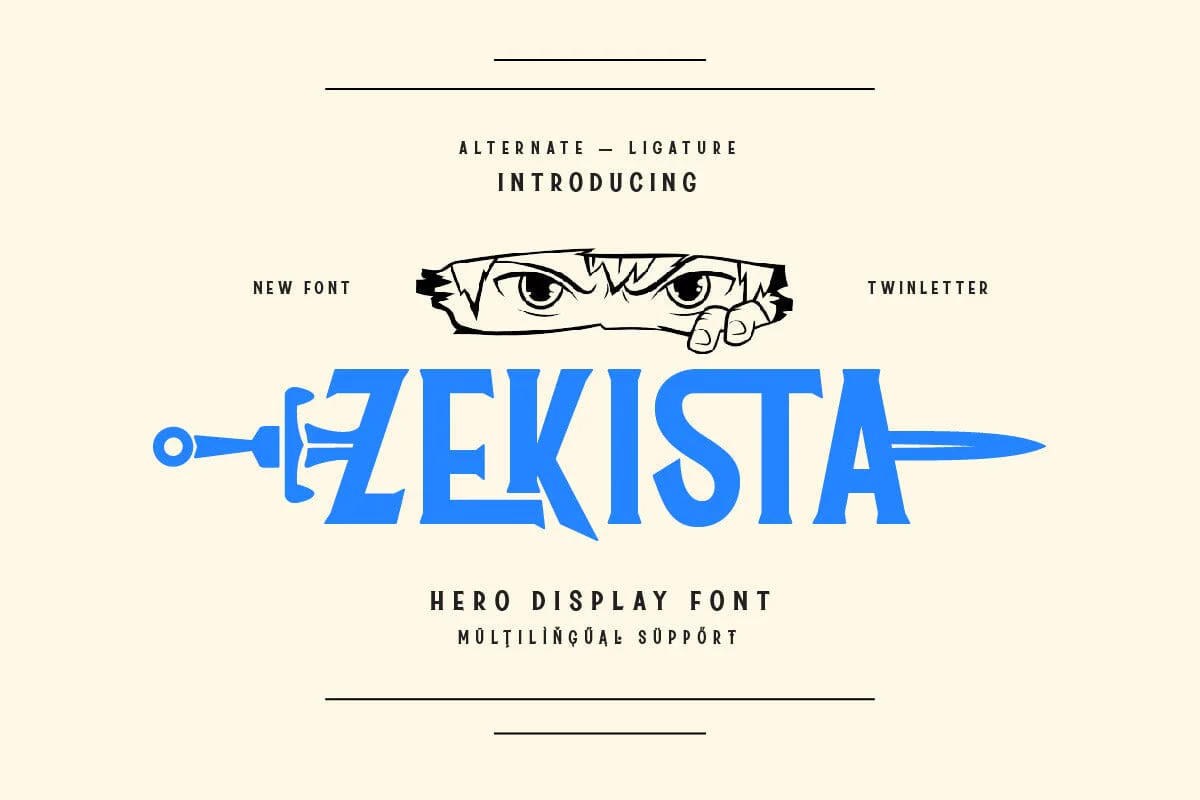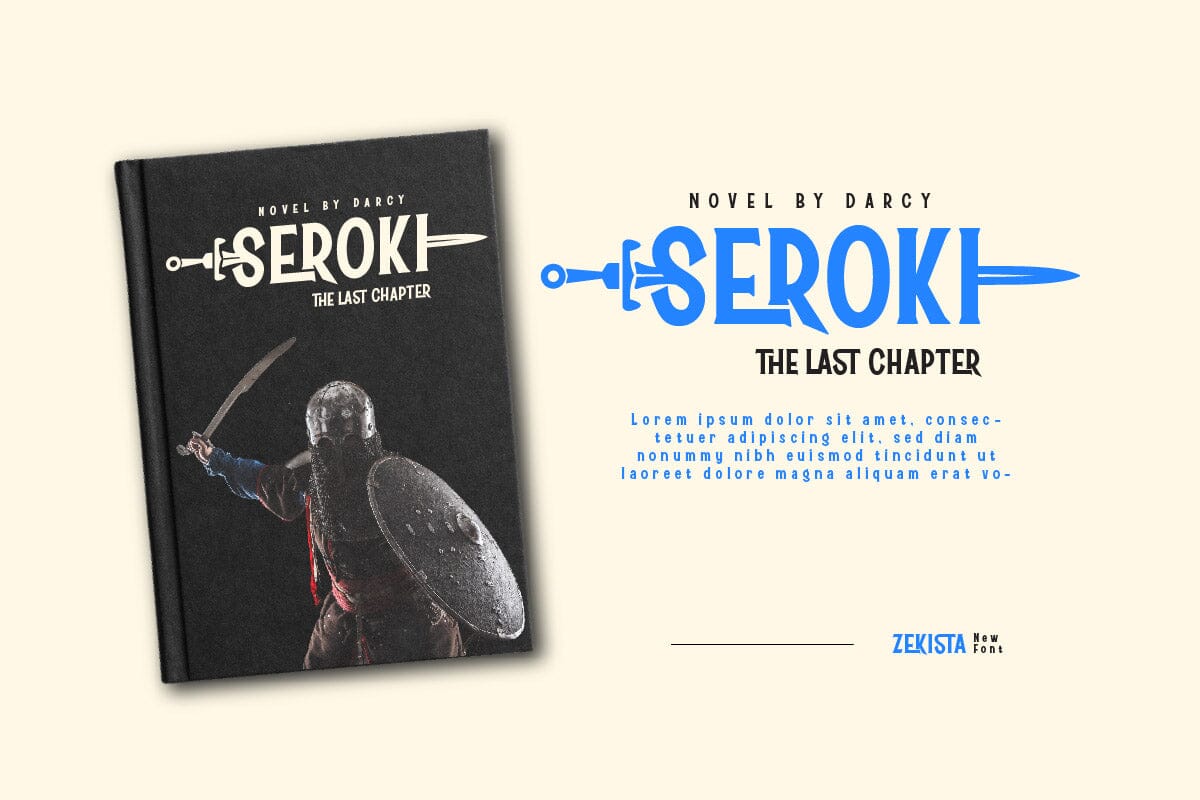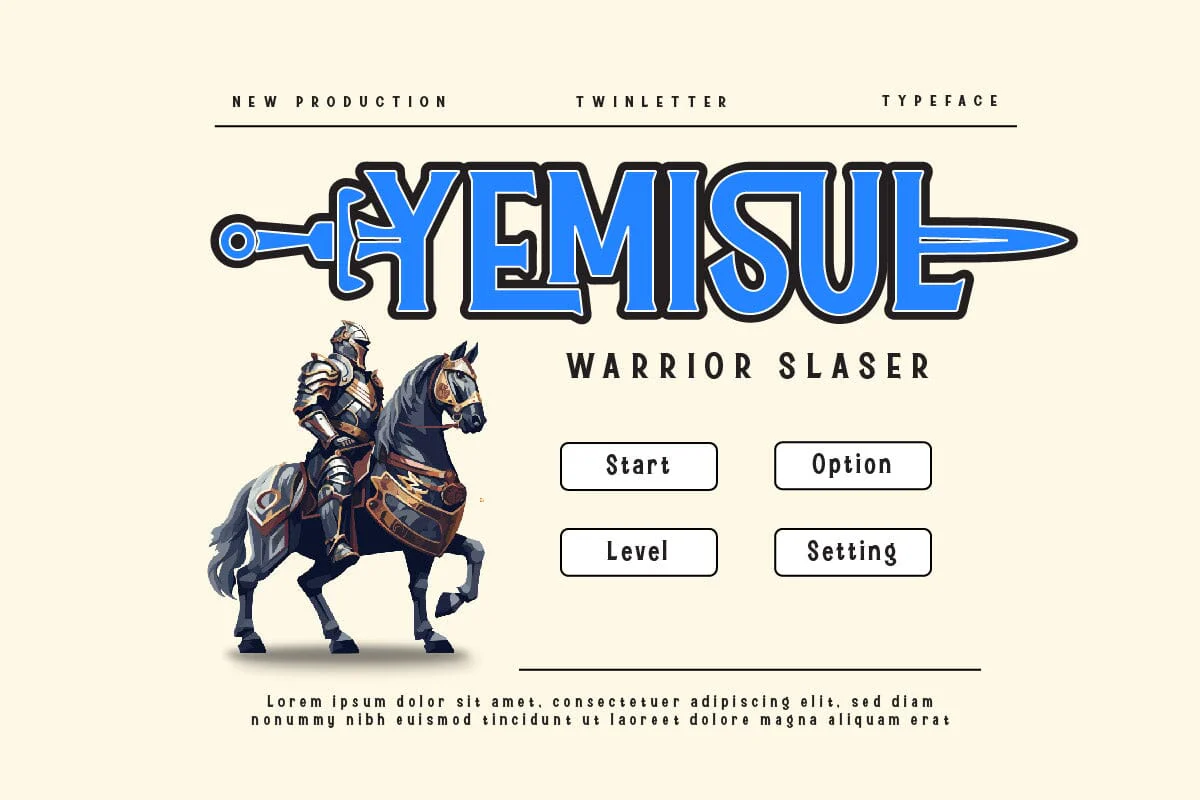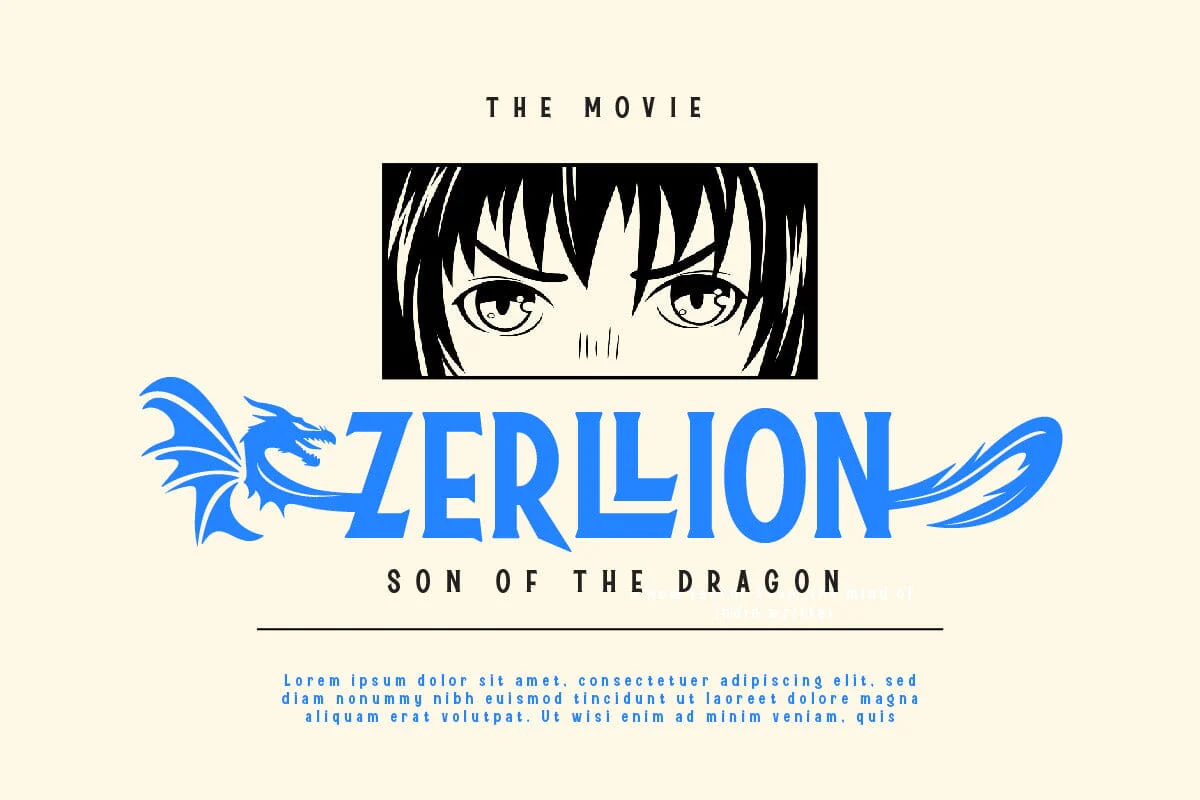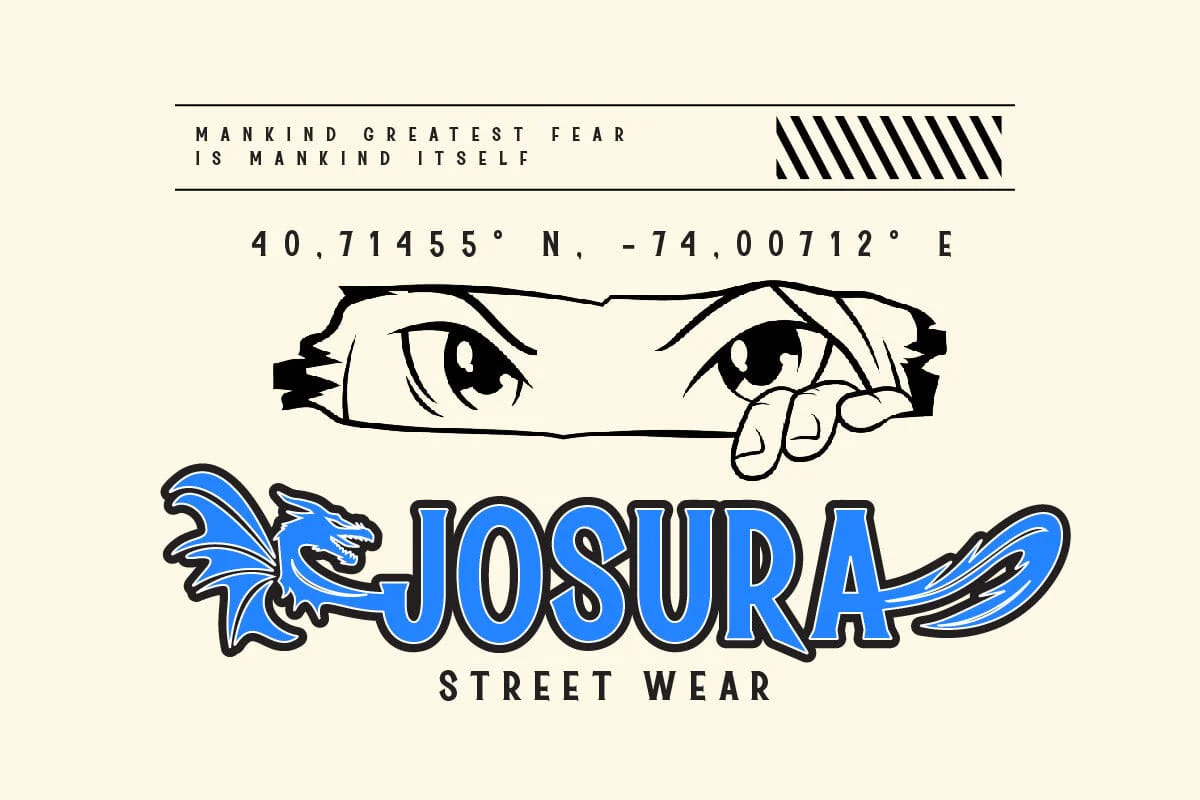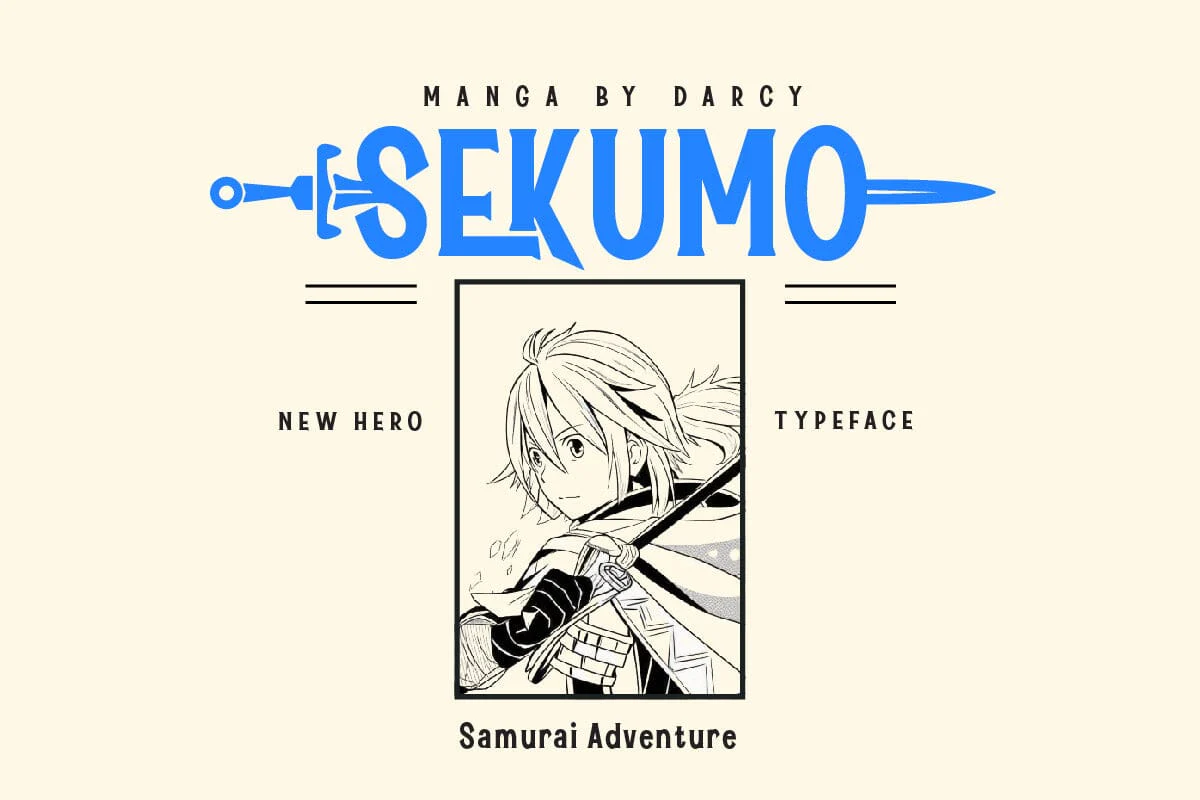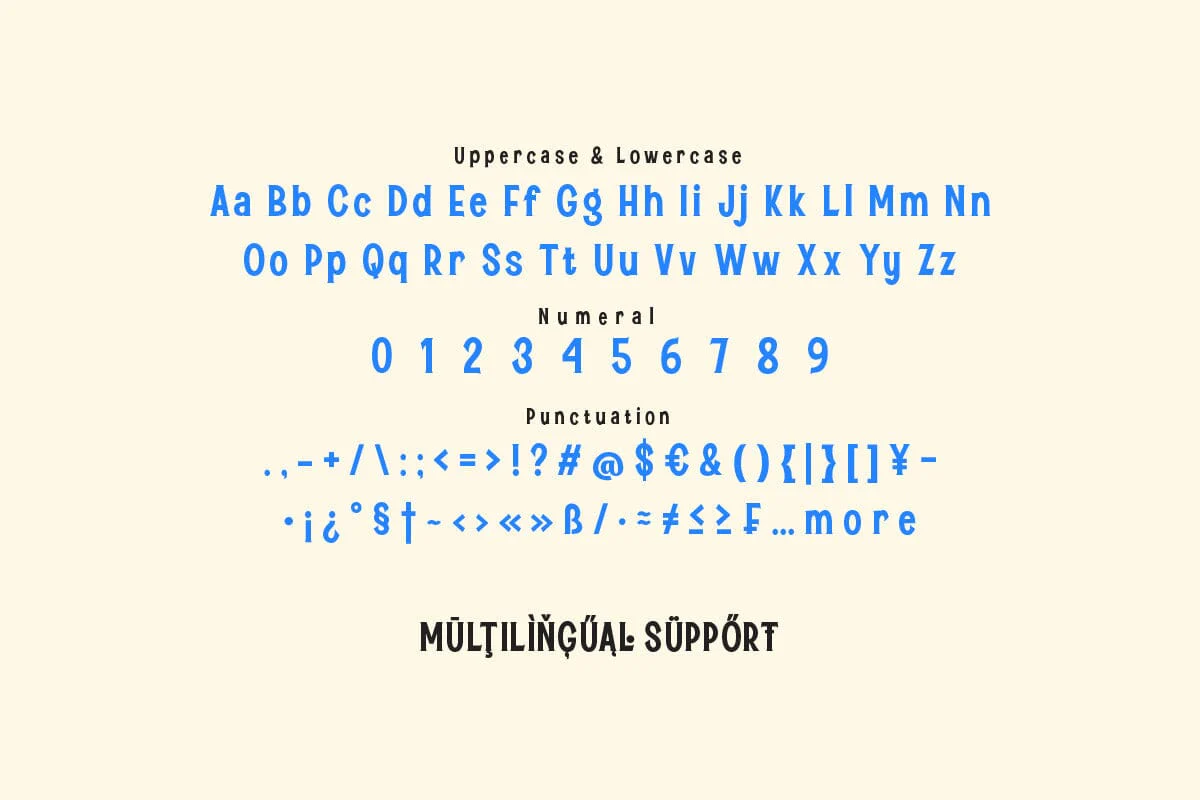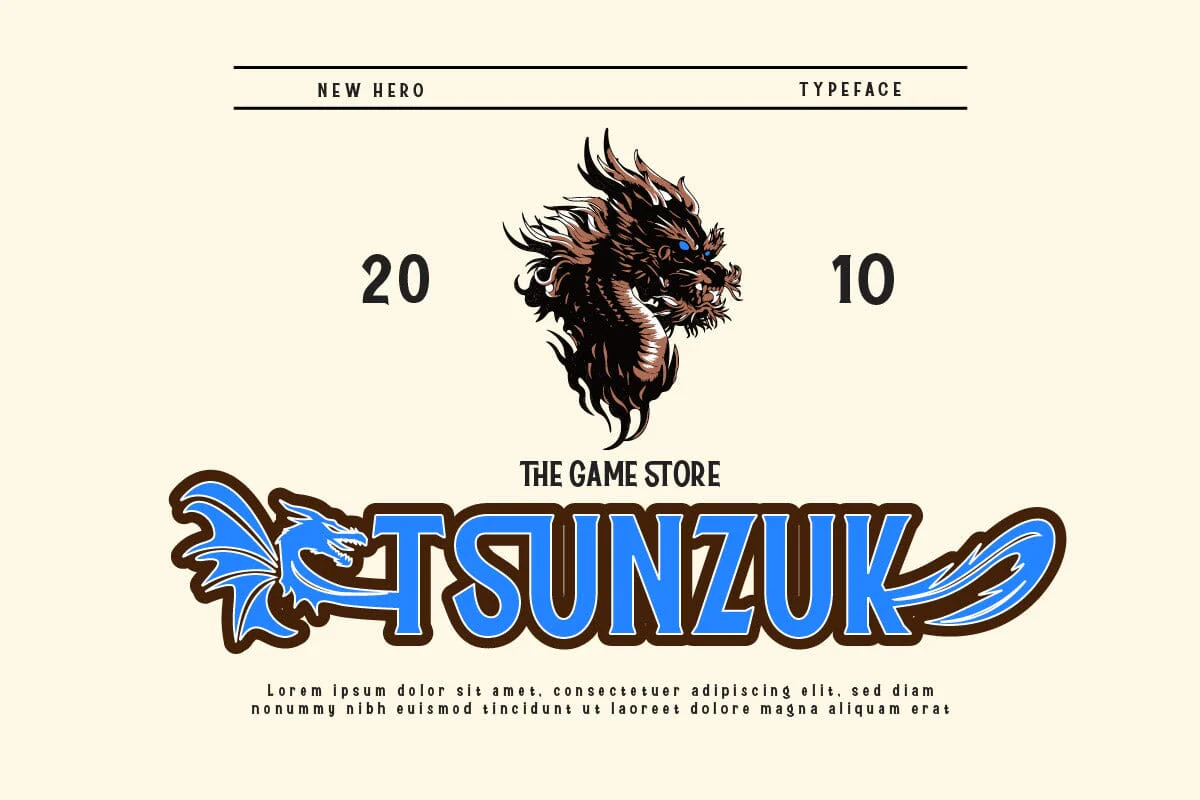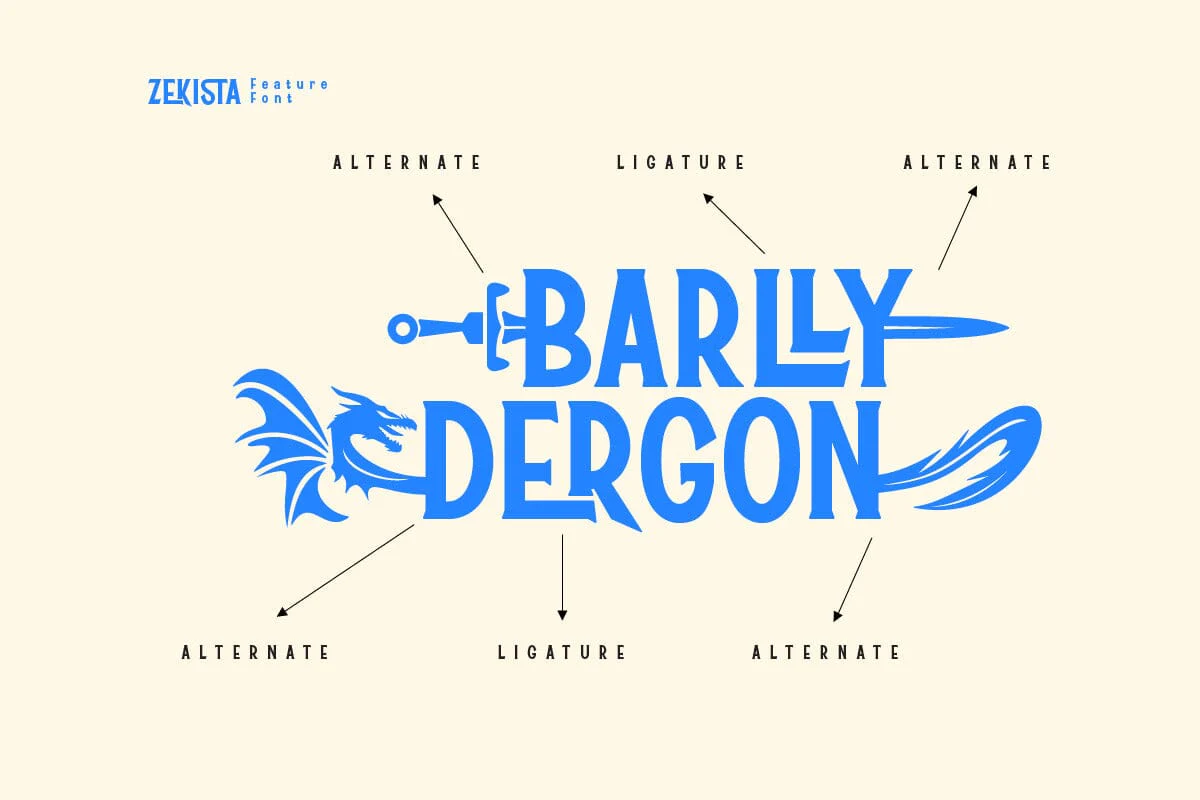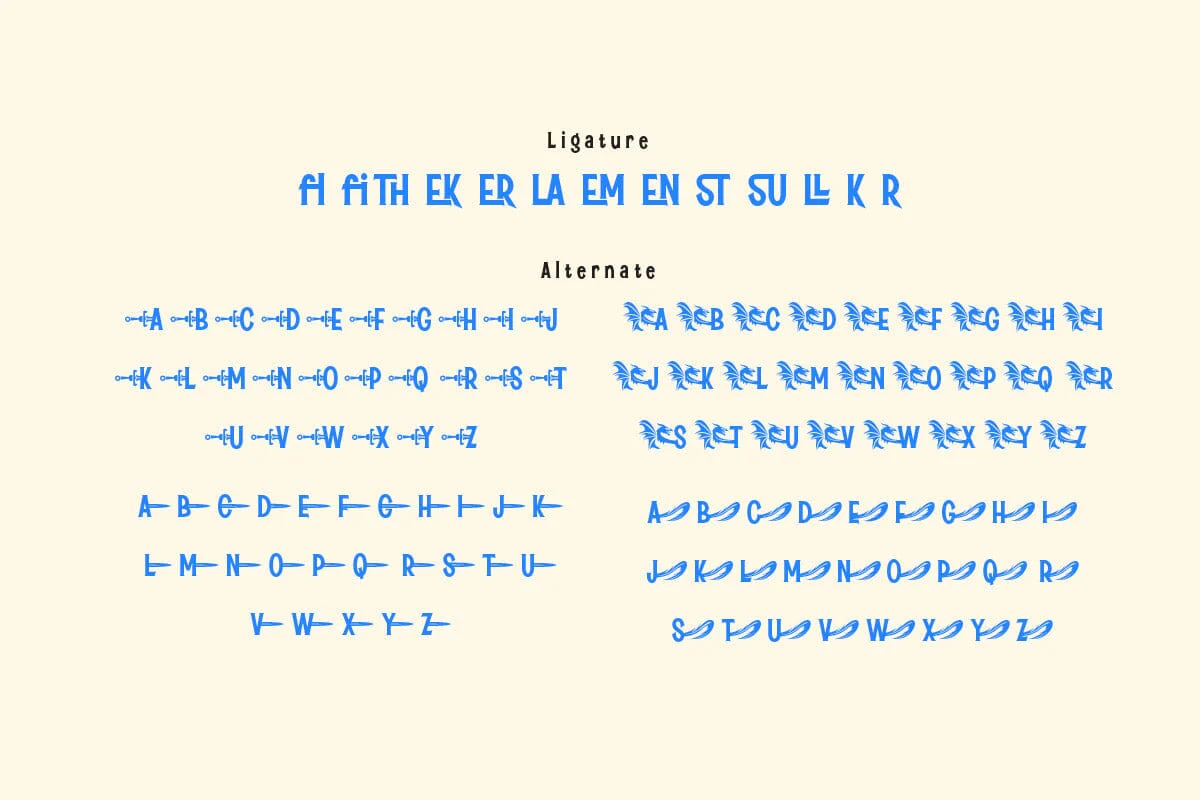
Zekista - Hero Display Font
Zekista is a hero display font that captures the spirit of heroism and adventure. Its bold, dynamic characters are perfect for designs that require a touch of power and confidence. Whether you’re creating a logo for a superhero brand or a headline for a comic book, Zekista adds a touch of heroism that is sure to captivate your audience. It’s not just a font, it’s a statement of power. With Zekista, your designs won’t just be seen, they’ll be felt. It’s like a burst of energy on a calm day, bringing a sense of excitement and dynamism to any design, making it perfect for any hero-themed design.